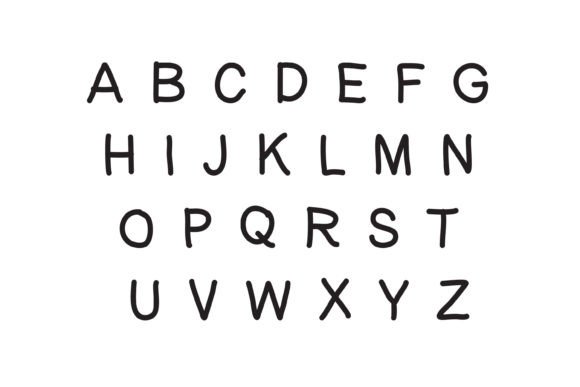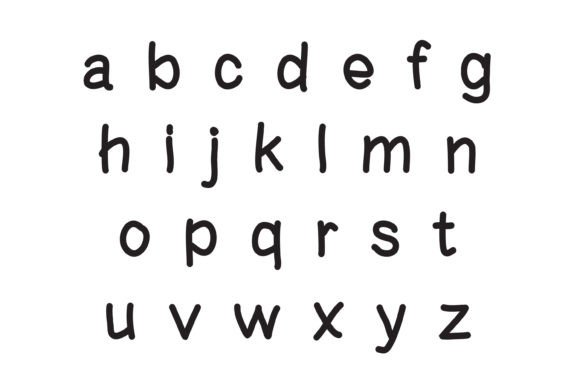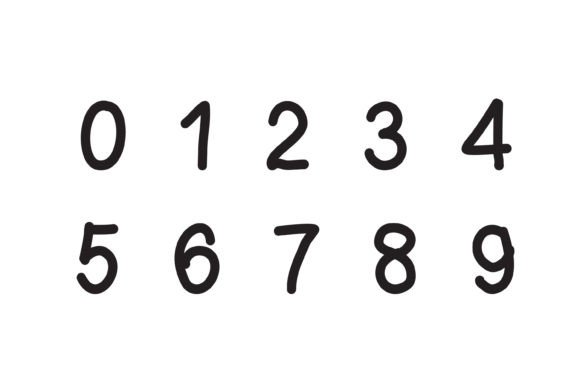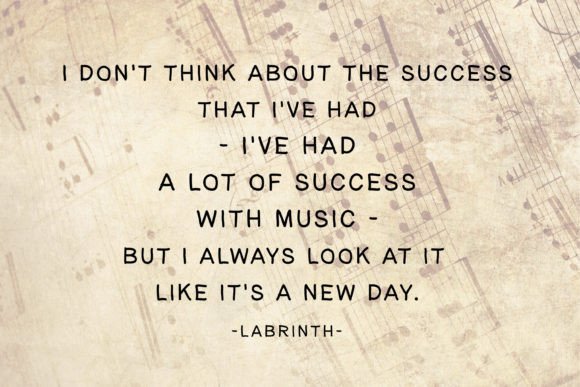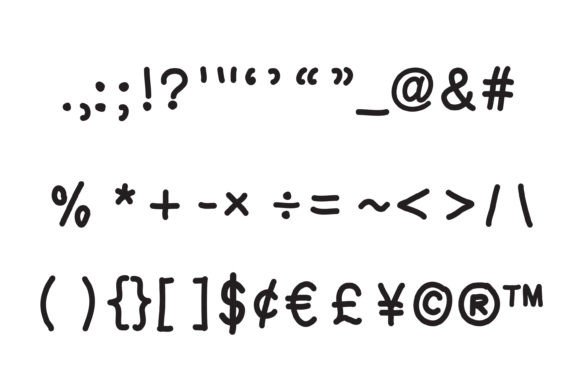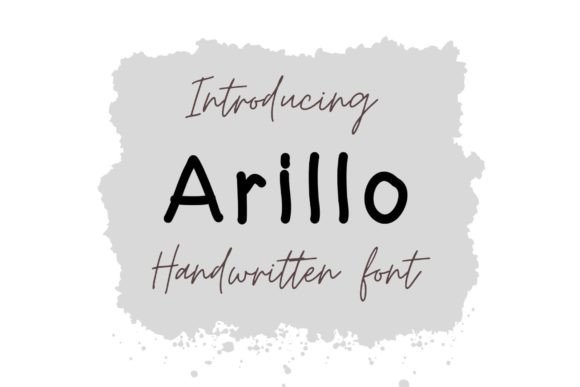
Discover the Charm of Arillo Font: A Handwritten Style for Every Occasion
When it comes to selecting the perfect font for your design project, the options can be overwhelming. However, if you’re looking for a font that exudes warmth, friendliness, and approachability, look no further than Arillo Font. This beautiful handwritten font is designed to make reading a breeze, making it an excellent choice for both informal and formal texts. Whether you’re working on a creative project, crafting quotes for products like mugs or shirts, or simply looking to add a personal touch to your designs, Arillo Font is sure to impress.
The Characteristics of Arillo Font
Arillo Font boasts a unique, handwritten style that is both elegant and effortless. Its carefully crafted letters are easy to read, ensuring that your message is conveyed clearly and effectively. The font’s smooth, flowing lines create a sense of continuity, making it perfect for longer texts or quotes. Additionally, Arillo Font’s versatility allows it to seamlessly adapt to various design contexts, from casual social media posts to more formal marketing materials.
Why Choose Arillo Font?
So, what sets Arillo Font apart from other fonts? Here are just a few reasons why designers and crafters alike are falling in love with this beautiful handwritten font:
- Readability: Arillo Font is designed with readability in mind. Its clear, flowing letters make it easy for readers to quickly grasp the text, ensuring that your message is conveyed effectively.
- Versatility: Whether you’re working on a formal or informal project, Arillo Font adapts seamlessly to various design contexts.
- Elegance: Arillo Font’s elegant, handwritten style adds a touch of sophistication to any design, making it perfect for projects where you want to convey a sense of refinement.
- Friendliness: The font’s warm, approachable feel makes it ideal for designs where you want to create a sense of connection with your audience.
Using Arillo Font in Your Designs
Arillo Font is incredibly versatile and can be used in a wide range of design projects. Here are a few ideas to get you started:
- Quotes and Sayings: Use Arillo Font to add a personal touch to quotes and sayings on products like mugs, shirts, and tote bags.
- Social Media Graphics: Create engaging social media graphics with Arillo Font, perfect for sharing inspirational quotes, fun facts, or promoting your brand.
- Branding and Packaging: Use Arillo Font to add a touch of elegance to your branding and packaging materials, such as business cards, brochures, and product labels.
- Blog Posts and Articles: Add a personal touch to your blog posts and articles with Arillo Font, making them more approachable and engaging for your readers.
Tips for Working with Arillo Font
To get the most out of Arillo Font, here are a few tips to keep in mind:
- Pair with Other Fonts: Experiment with pairing Arillo Font with other fonts to create a unique and visually appealing design.
- Adjust Font Size: Adjust the font size to suit your design needs, ensuring that your text is clear and easy to read.
- Use in Combination with Images: Use Arillo Font in combination with images to create a visually appealing design that captures the reader’s attention.
In conclusion, Arillo Font is a beautiful handwritten font that offers a unique blend of elegance, readability, and friendliness. Its versatility and adaptability make it an excellent choice for a wide range of design projects, from informal social media posts to formal marketing materials. Whether you’re a designer or crafter, Arillo Font is sure to become a staple in your design toolkit.